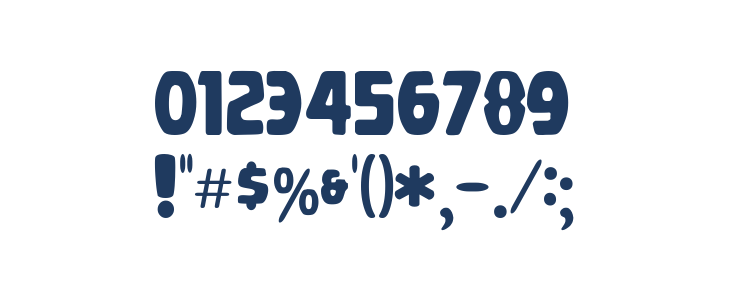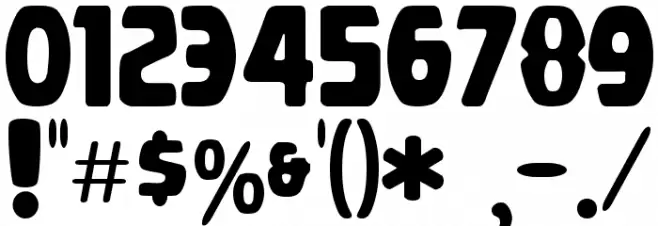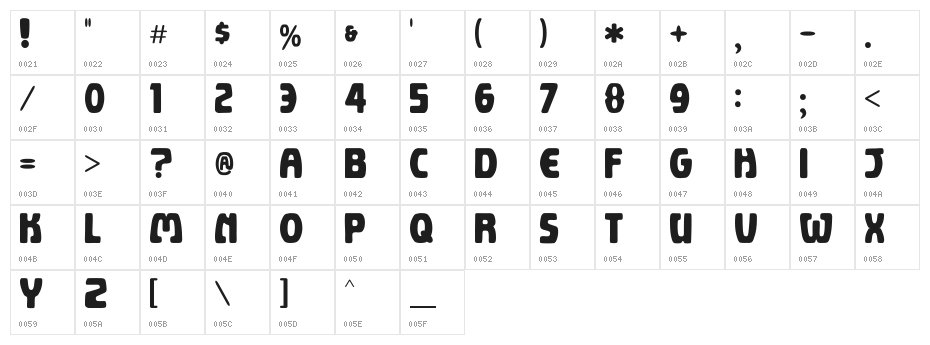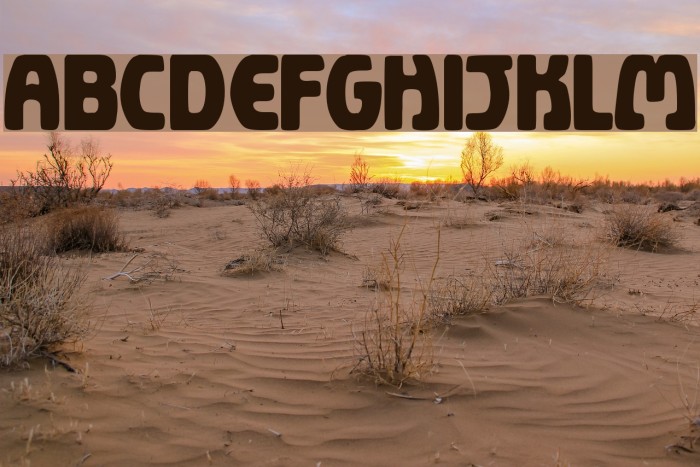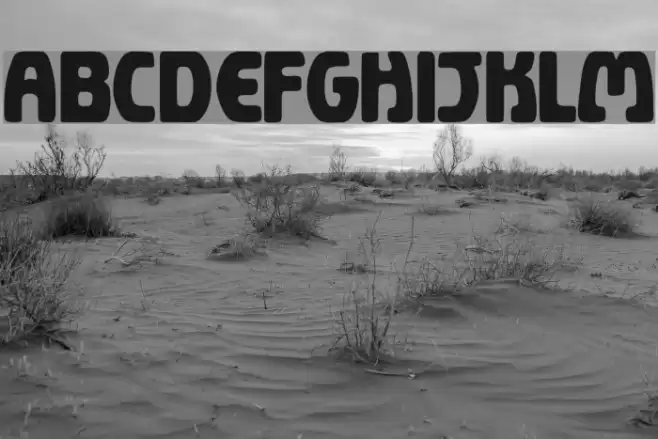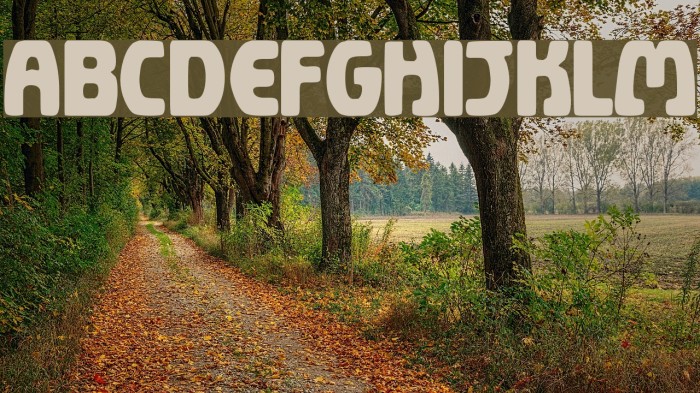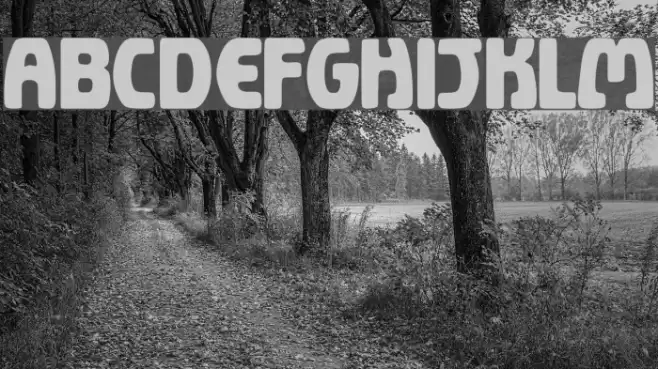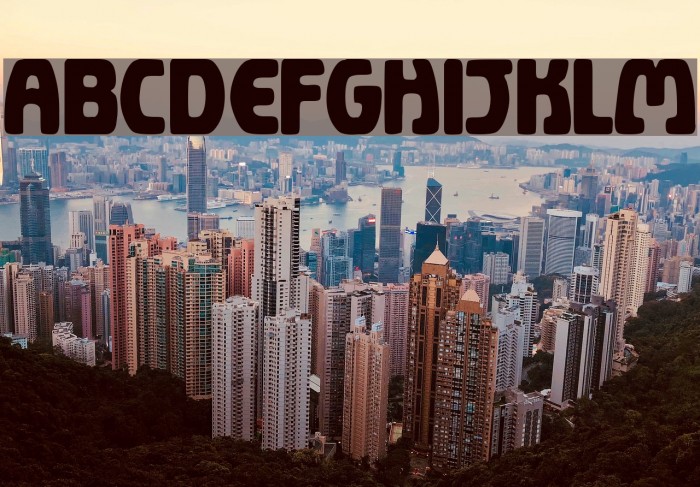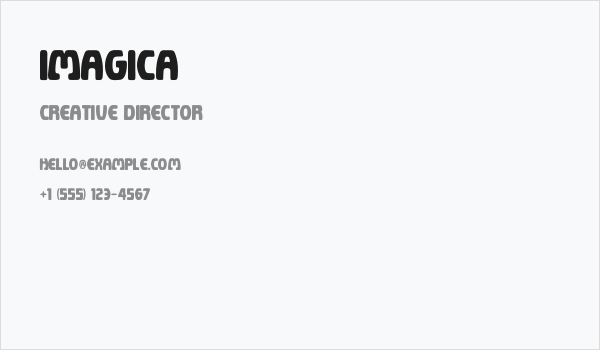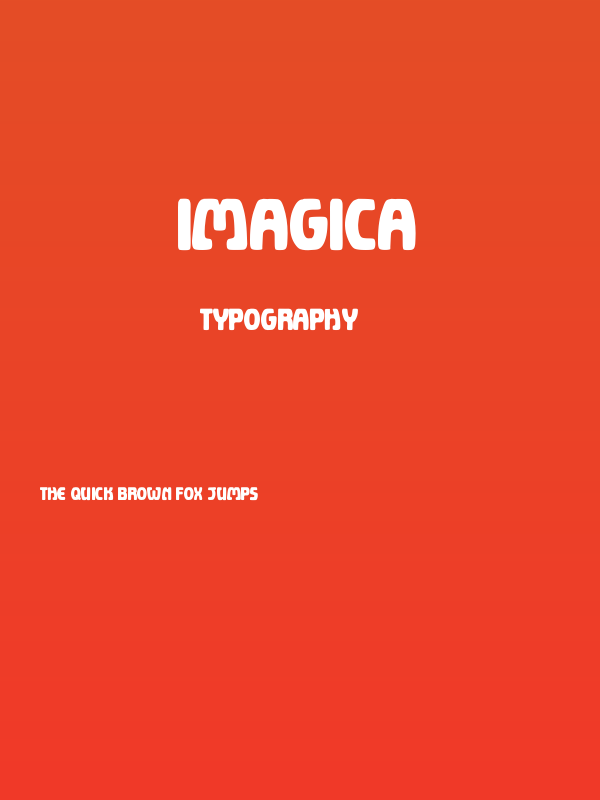
Imagica Font
Imagica Description
This font features a bold and playful design with rounded edges and a chunky appearance. The characters are uniformly thick, giving it a strong presence and making it highly legible from a distance. The style is reminiscent of retro or vintage aesthetics, often seen in playful or whimsical contexts. The letters are evenly spaced, and the overall look is cohesive and balanced. The numbers and special characters maintain the same bold and rounded style, ensuring consistency across all elements. This font is ideal for projects that require a fun and engaging look, such as children's books, posters, or branding for playful products.
| Proposed Projects | Ideal for children's books, playful branding, posters, and retro-themed designs. |